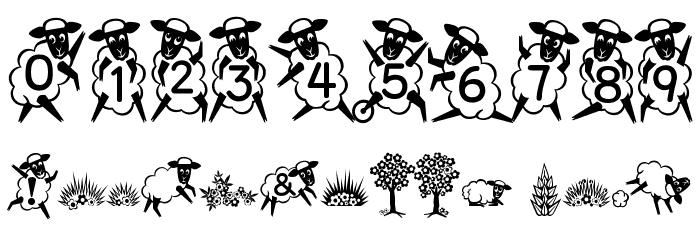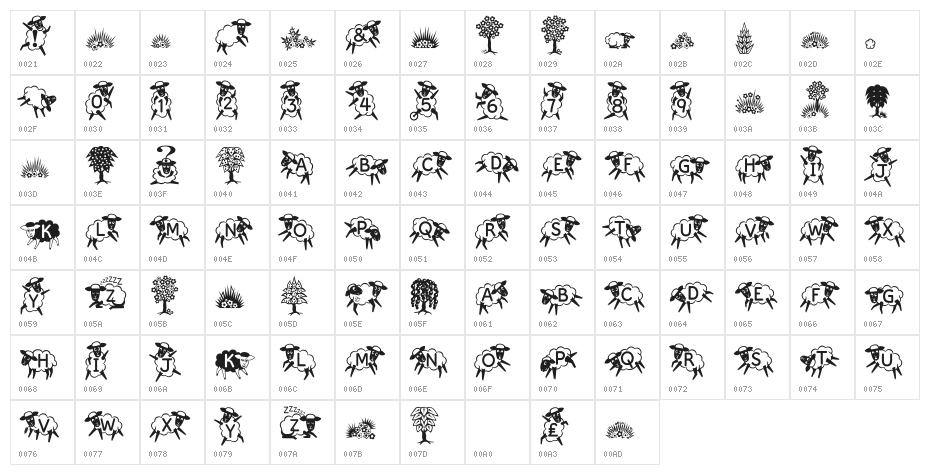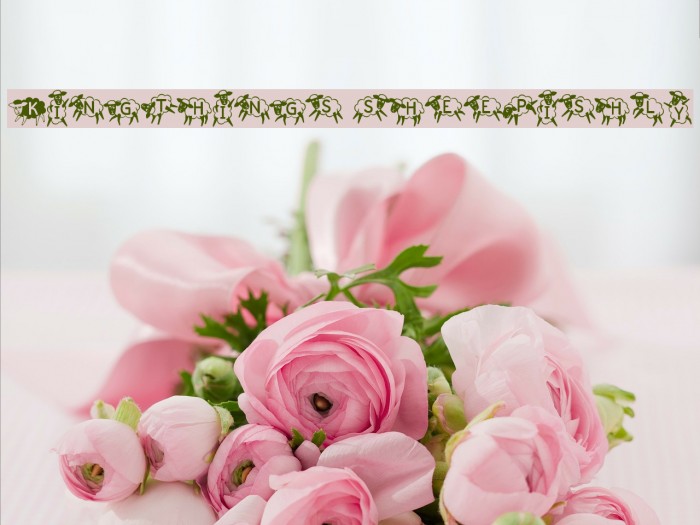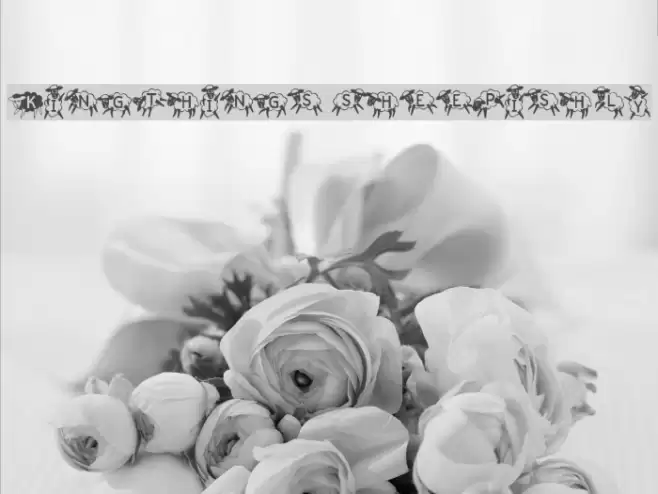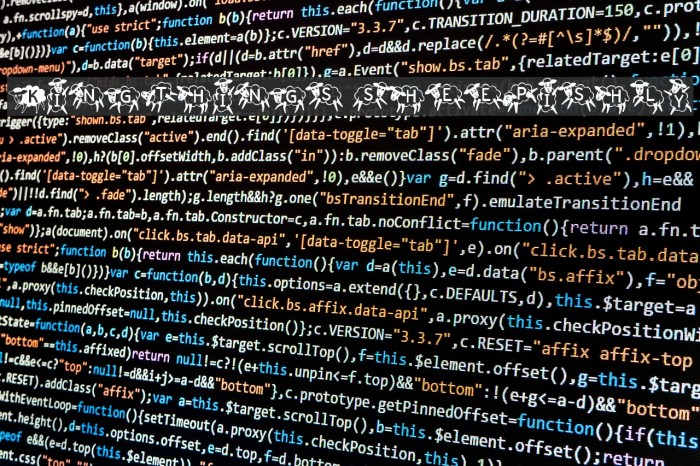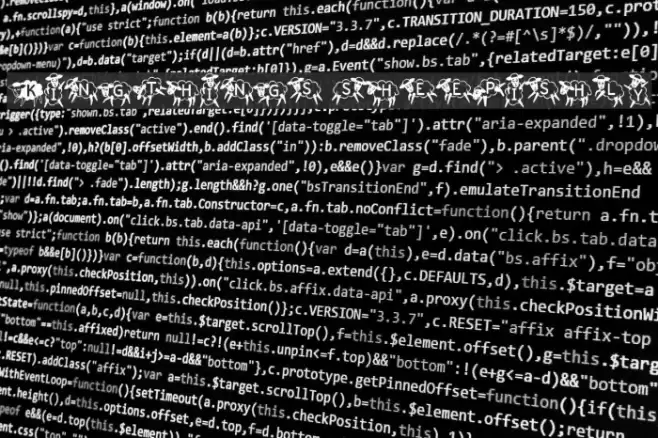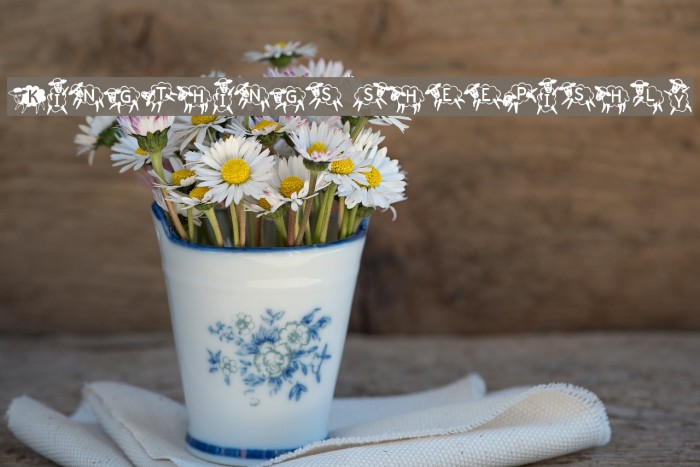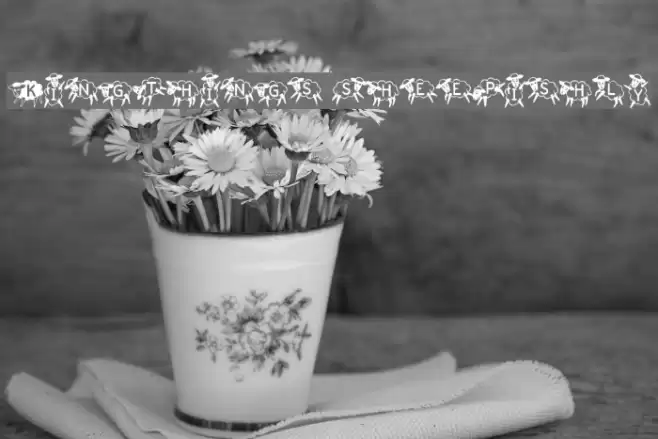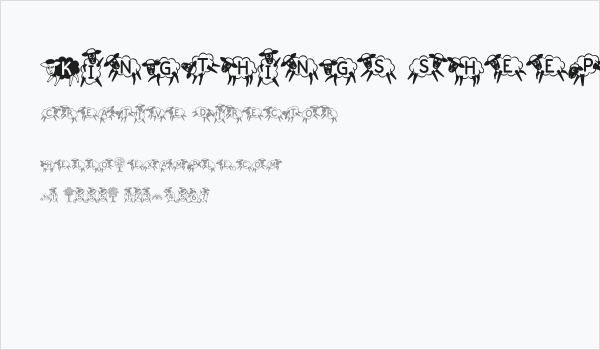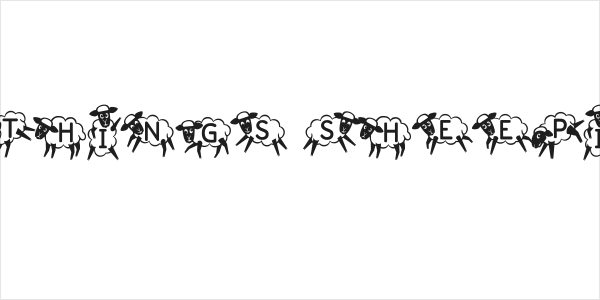
Kingthings Sheepishly Font
Kingthings Sheepishly Description
This whimsical and playful font features characters embedded within cartoonish sheep illustrations. Each letter and number is creatively integrated into the body of a sheep, giving a unique and humorous touch to the text. The font is highly decorative, with each character maintaining a consistent style that includes bold outlines and a charming, hand-drawn aesthetic. The sheep characters are animated in various playful poses, adding a lively and dynamic feel. This font is perfect for projects that require a fun and lighthearted tone, such as children's books, playful branding, or themed event invitations.
| Overall Style | Whimsical, Playful, Decorative |
| Use Case | Headlines, Logos, Themed Invitations |
| Proposed Projects | Ideal for children's books, playful branding, themed event invitations, and any project needing a whimsical touch. |